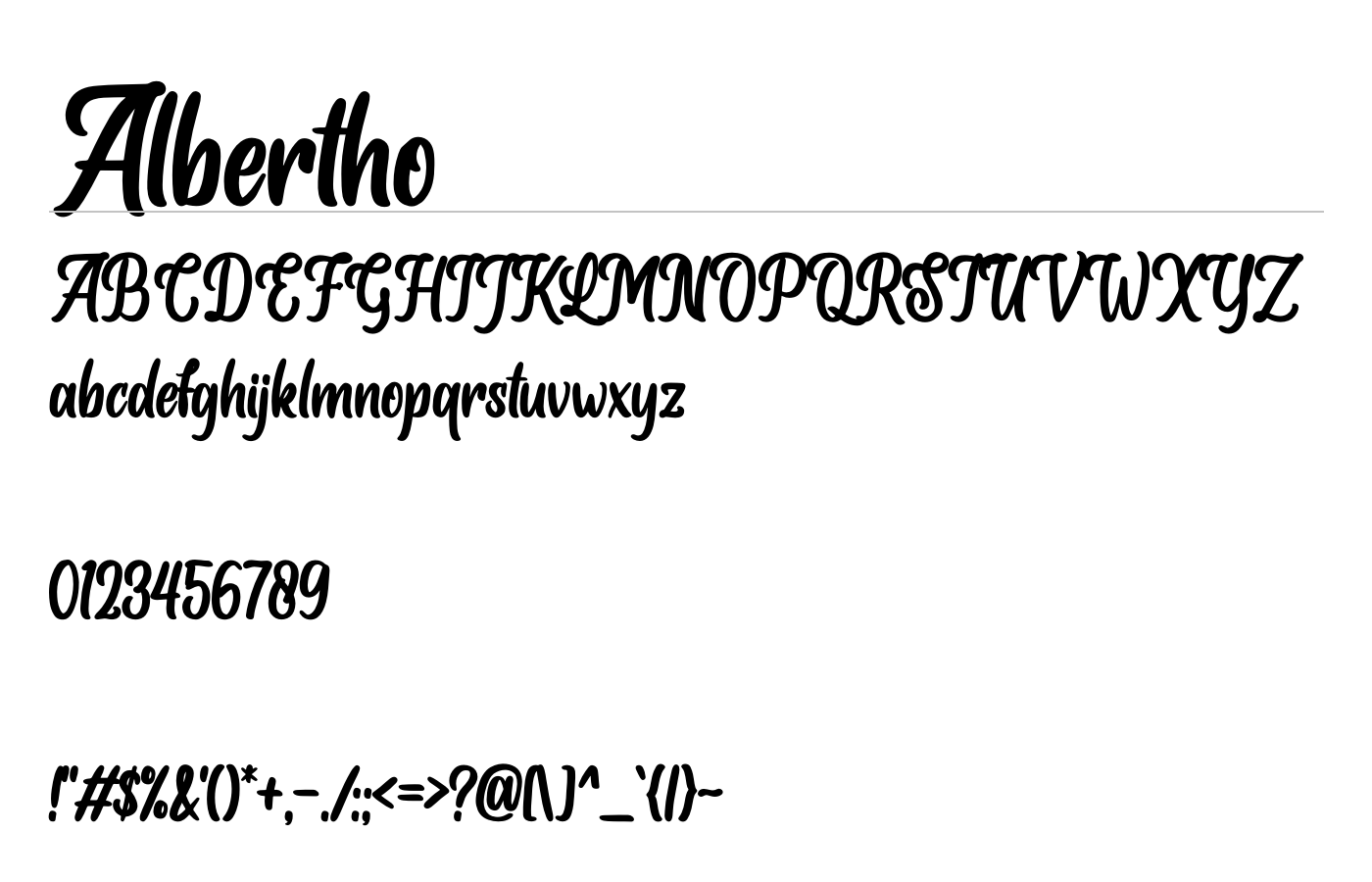
Albertho is a stylish script font with a bold weight and a lively, handwritten feel. Its smooth, slightly condensed letterforms feature high contrast strokes and elegant curves, making it perfect for eye-catching headlines, branding, and creative projects that seek a friendly yet sophisticated vibe. This font works well for fashion, logos, invitations, and any design needing a playful but polished touch.
Albertho Font